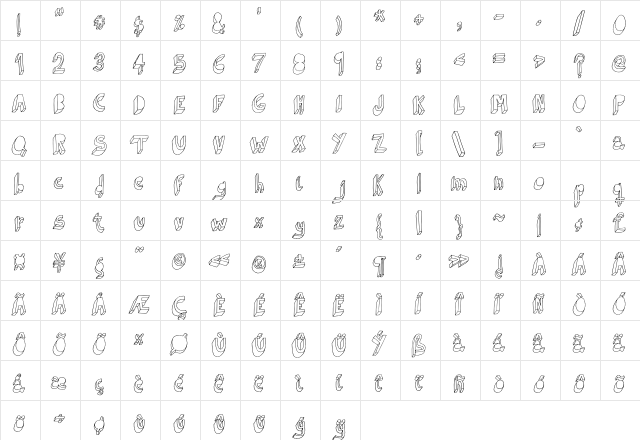
Indietronica Regular
| Foundry | Pisto Casero |
| Designer | Gilberto Moya |
Design Context for Indietronica Typeface
Indietronica is a composed and adaptable typeface that performs quietly and consistently across a wide range of design contexts.